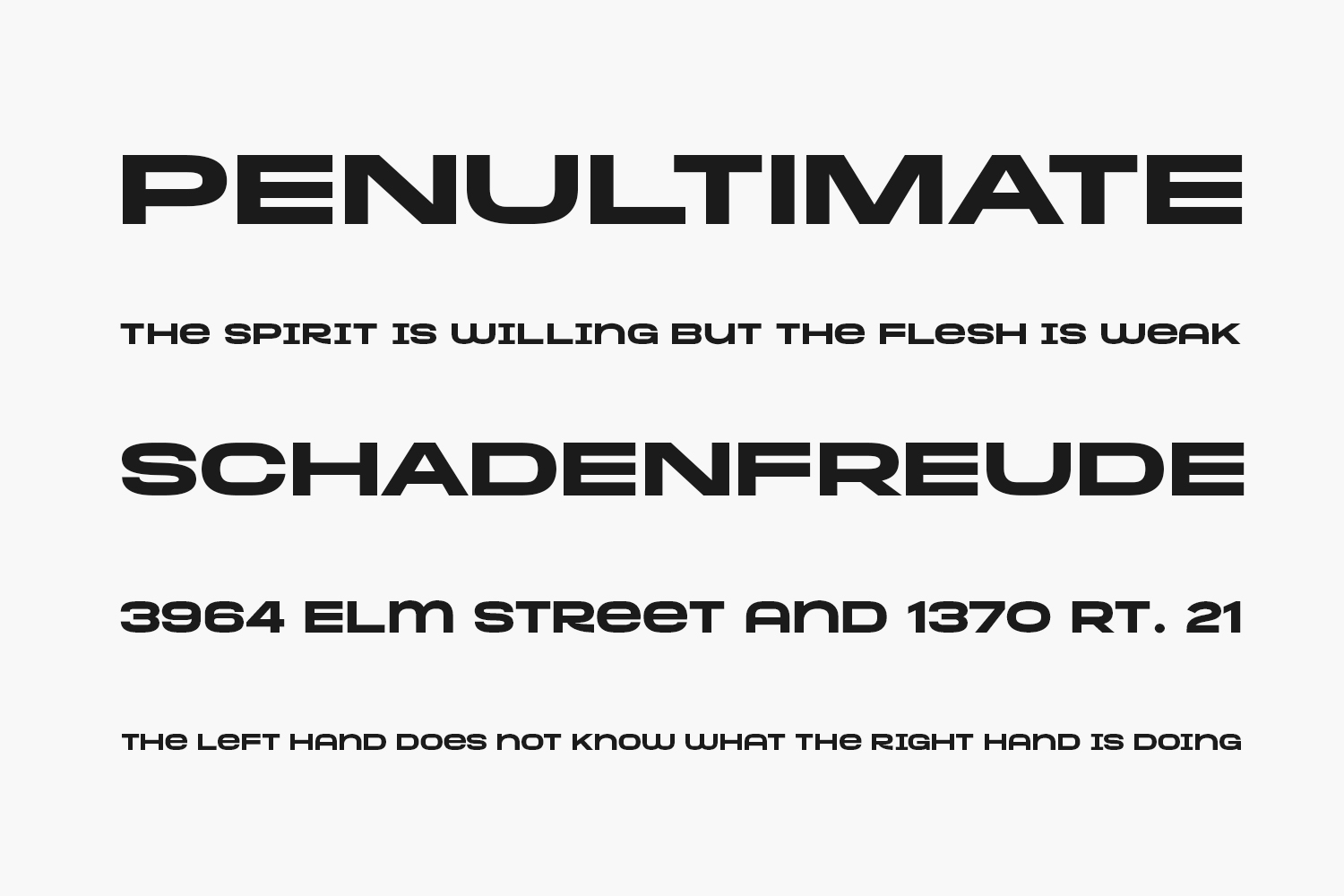
Mortend Free Font is a striking and innovative sans-serif typeface that exudes boldness and modernity. Expertly crafted to become a standout choice, this font has the power to elevate all of your creative concepts to new heights. Its potential is limitless and its impact undeniable, making it a must-have for anyone who wants to bring their ideas to life in a big way. So if you’re looking for a font that can help you make a statement and push the boundaries of design, look no further than Mortend Free Font.
Designed by Arterfak Project